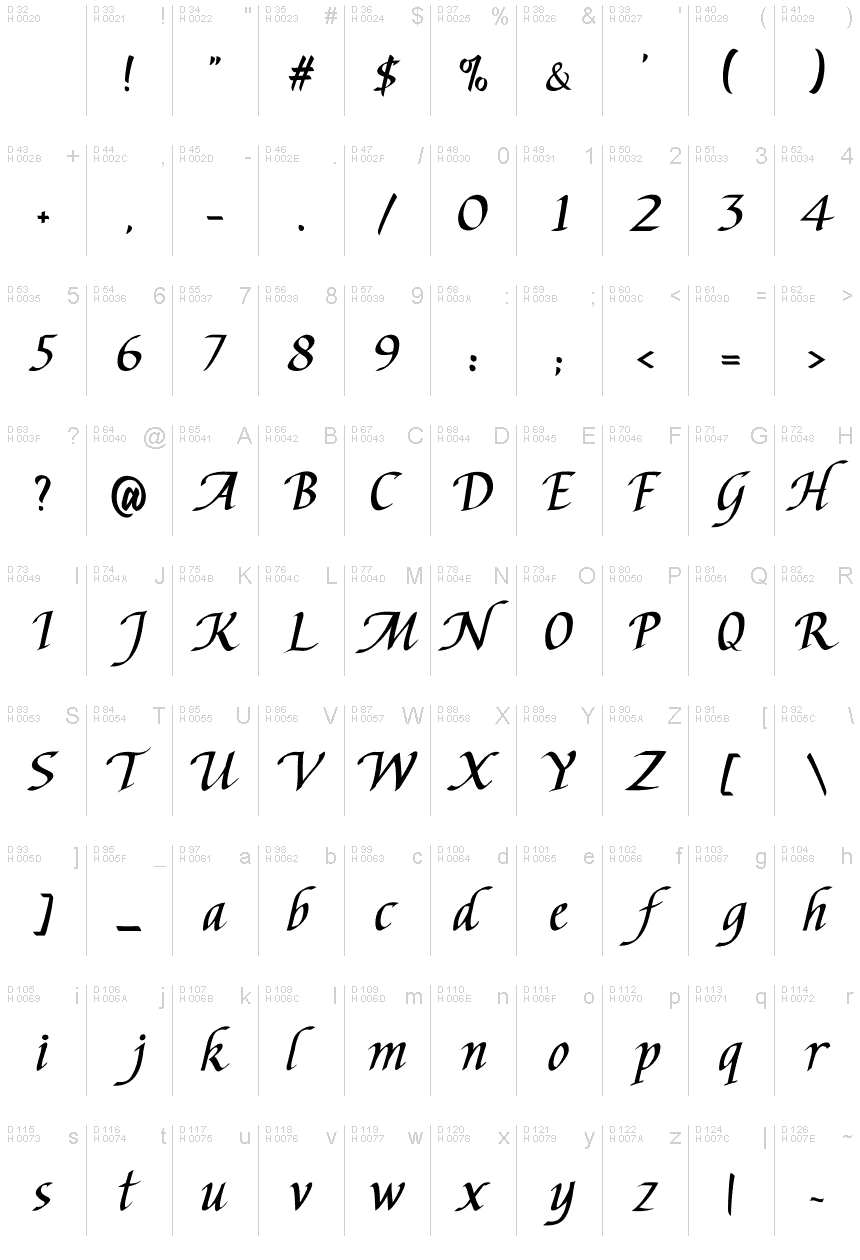
Chancery-Stars
Chancery-Stars is a flowing Calligraphy font, described by an elegant touch, perfect for your favorite projects. Fall in love with its incredibly distinct and timeless style and use it to create spectacular designs! Trendy and feminine style. Chancery-Stars looks lovely on wedding invitations, thank you cards, quotes, greeting cards, logos, business cards and more.